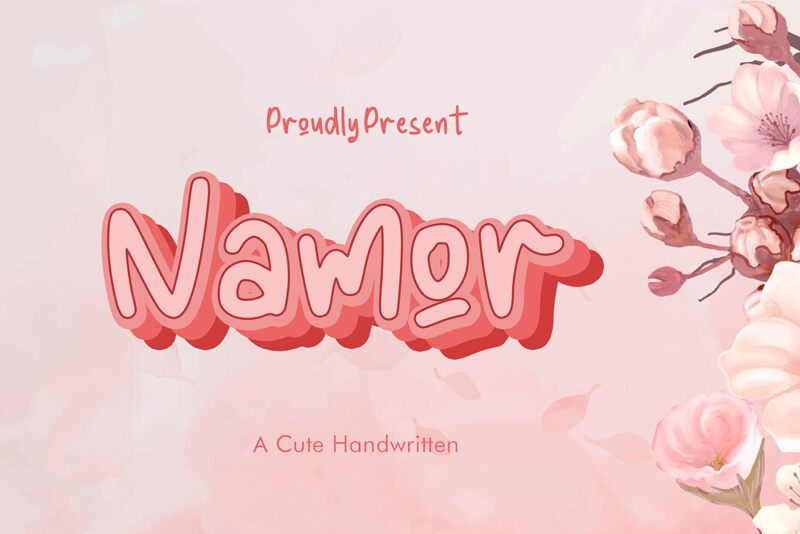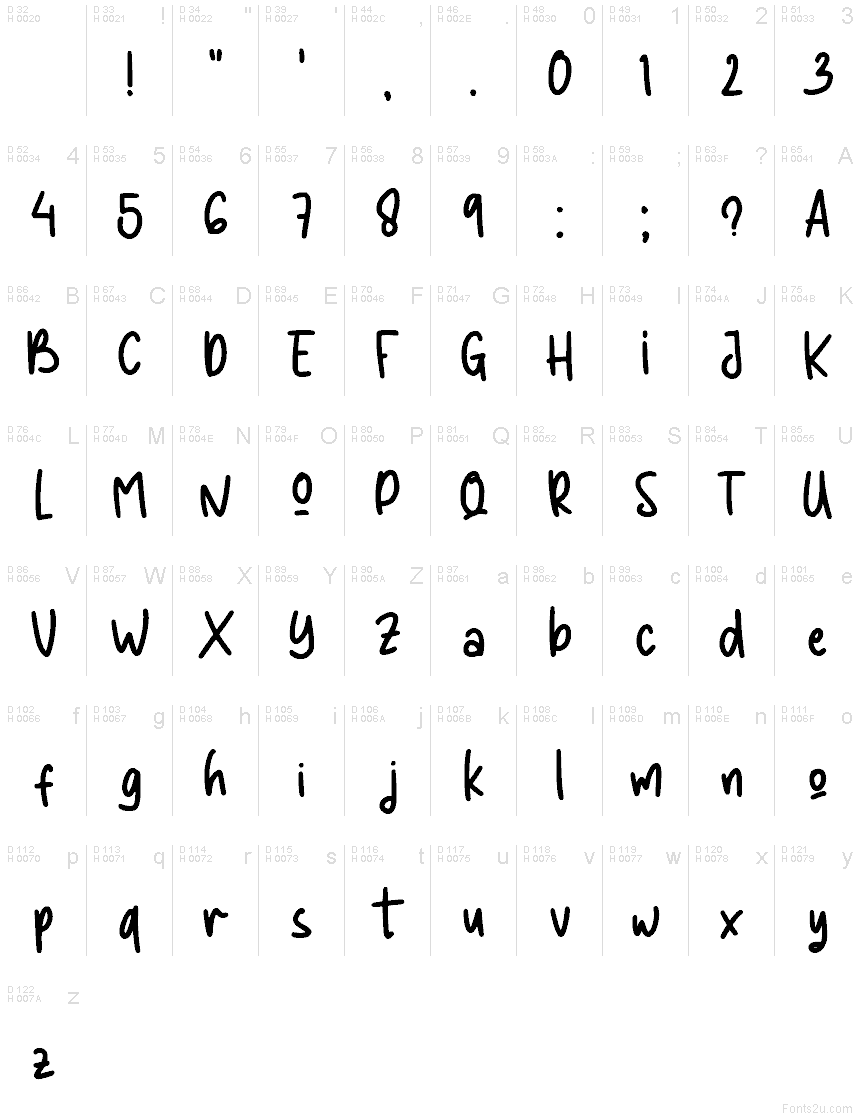
Namor Regular
Namor font by Faras Dina is a free bold handwritten font. Its chunky, rounded strokes and soft, inky endings give every word a friendly bounce, like marker letters sketched with confident sweeps. The rhythm feels casual yet steady, so headlines read with an easy sway instead of a messy wobble—playful without losing clarity.
Using Namor, you’ll get instant charm for stickers, kids’ posters, snack packaging, social graphics, cafe logos, and event flyers. The letterforms hold up at larger sizes, delivering a cozy, tactile vibe that pops on color. This free font works beautifully alongside a clean geometric sans for small text; let Namor sing in the headline and keep the supporting copy neat and simple.